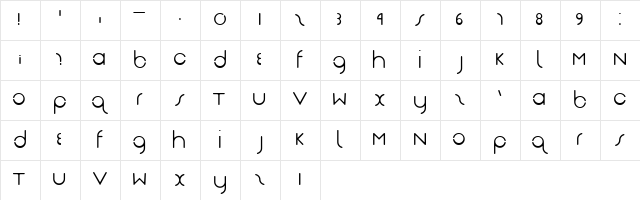
Das Reicht Gut Regular Regular
Design Context for Das Reicht Gut Regular Typeface
Das Reicht Gut Regular takes a measured approach to typography — its balanced proportions and neutral character make it a reliable workhorse for both digital and print work.